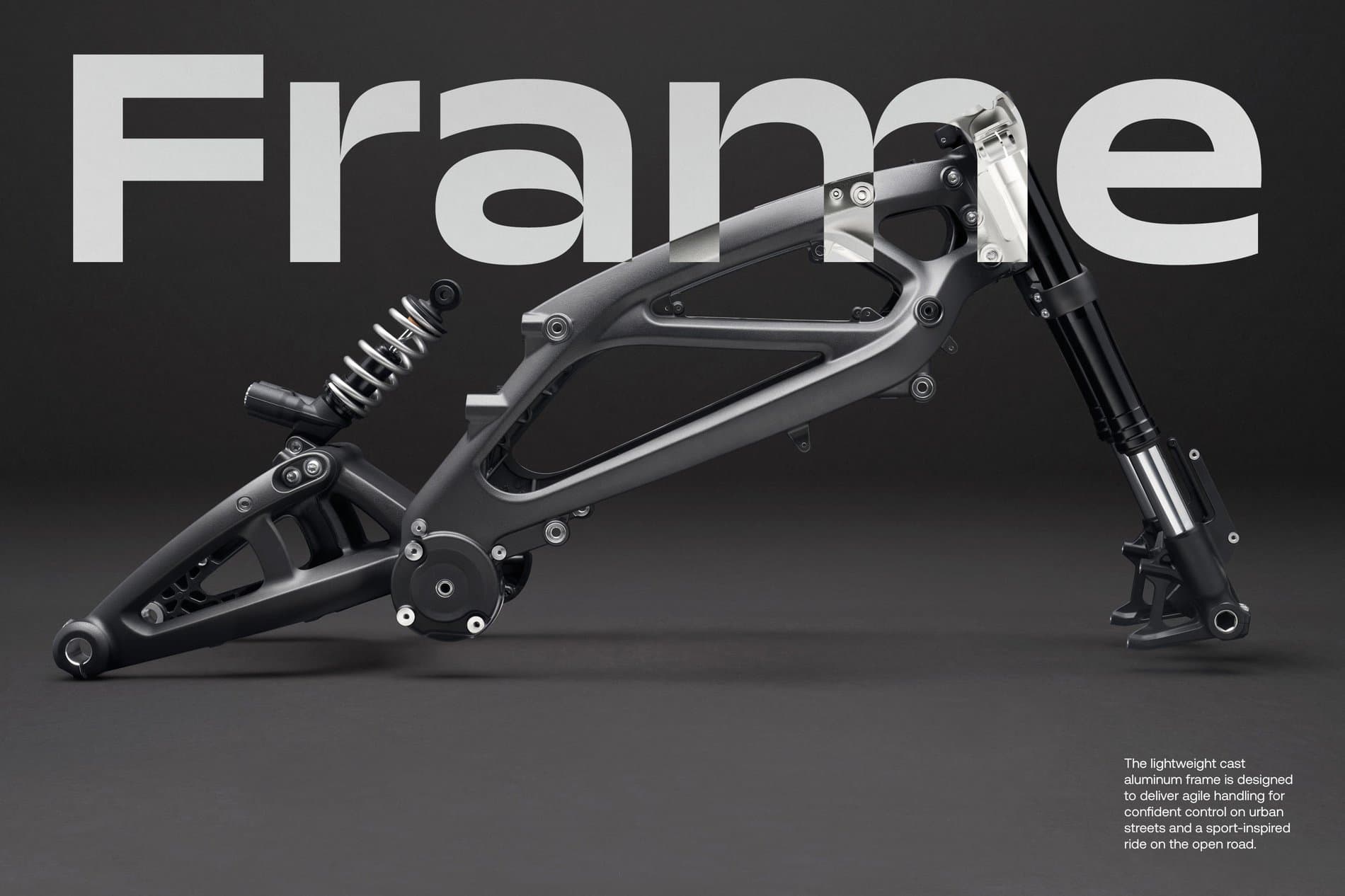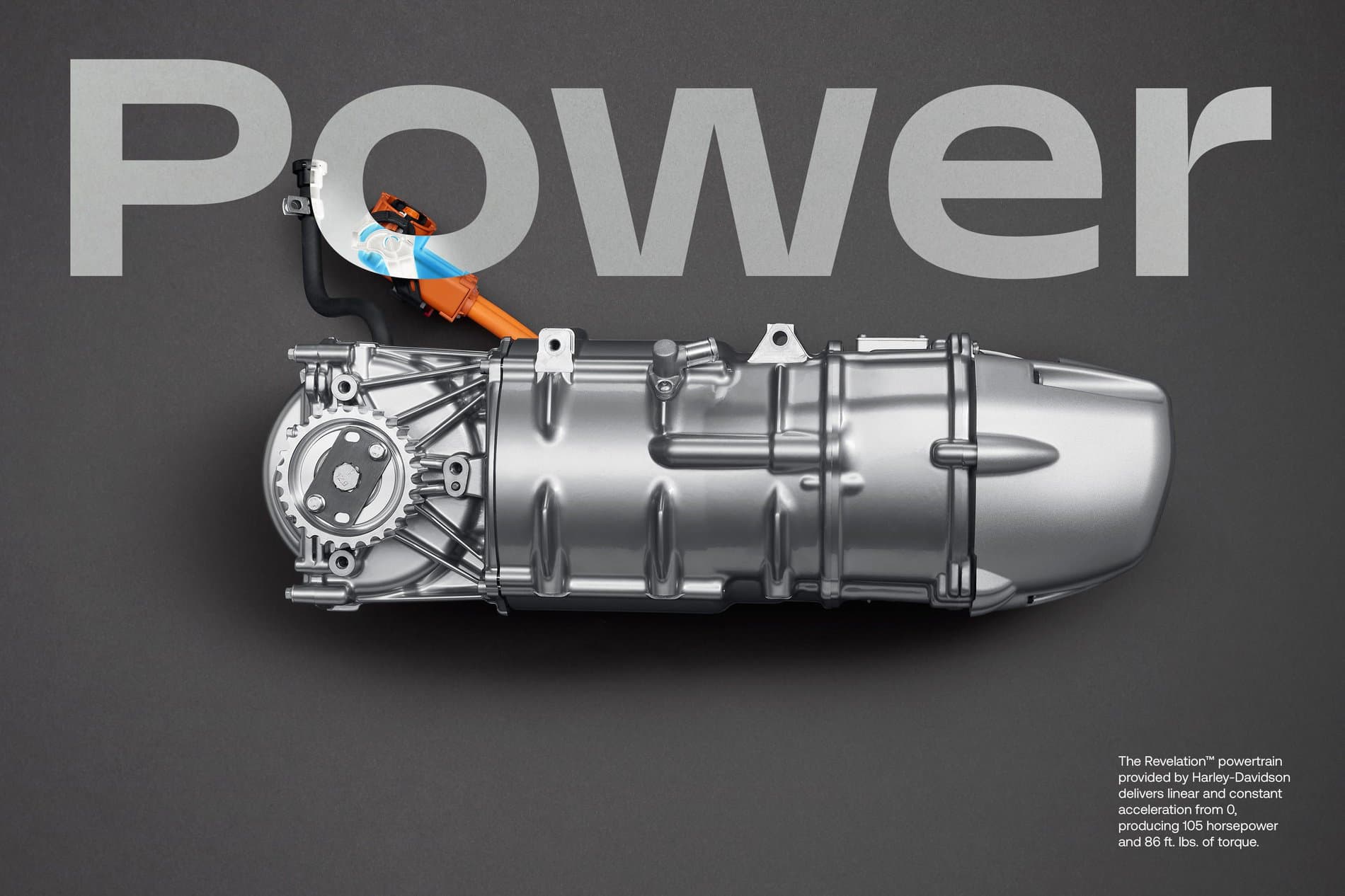
LiveWire is an American electric motorcycle manufacturer originally launched in July 2021 as the dedicated electric vehicle division for Harley Davidson. They launched its first model, the LiveWire ONE with comprehensive brand identity provided by San Francisco-based studio Manual Creative. In late September of 2022, the company spun-off from its parent company and became the first publicly traded electric motorcycle company in the United States. A second model, the S2 Del Mar, debuted at the same time, offering a more compact bike geared towards the city-dweller.
Manual Creative decided to use Marc Rouault's Trois Mille as the main typeface for LiveWire's branding system. Their goal was to steer their image away from the negative connotations of the "e-bike" and instead use the brand's Harley Davidson parentage to highlight uniquely American ideals: the joyride, the freedom of escape, and the best of "Made in the USA" engineering and power. (The European sleekness of the typeface and the overall clean design of the bikes themselves also play against its Harley Davidson legacy--and the heavy metal connotations of the company's own namesake--in a likely bid to "have it all" in terms of brand associations.)
Trois Mille, published by Sharp Type, is an eye-catching typeface, expertly constructed and already a modern classic. It is genre-defying and pioneering in its exuberant defiance of normal type conventions, highlighted by its inverted contrast and pinched stroke intersections. Its impressively large and dramatic width system also means the application possibilities are endless, which Manual Creative used to great effect throughout LiveWire's branding system.